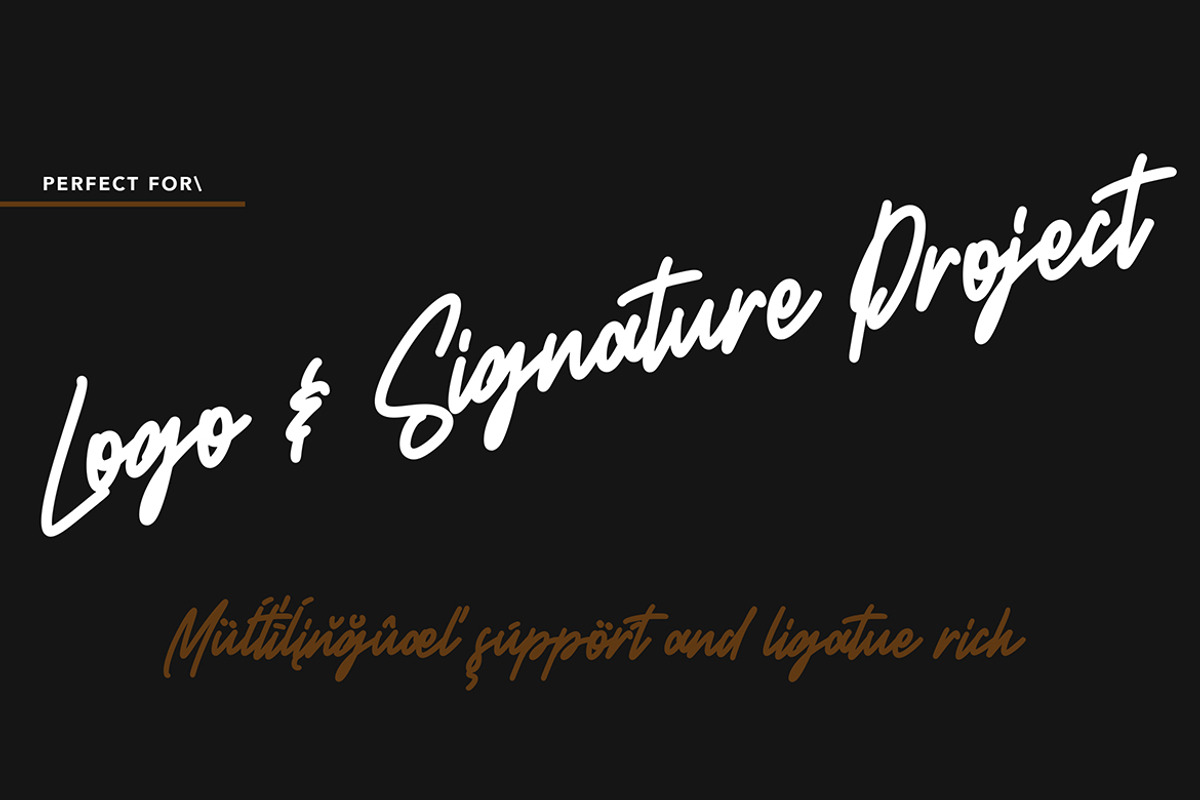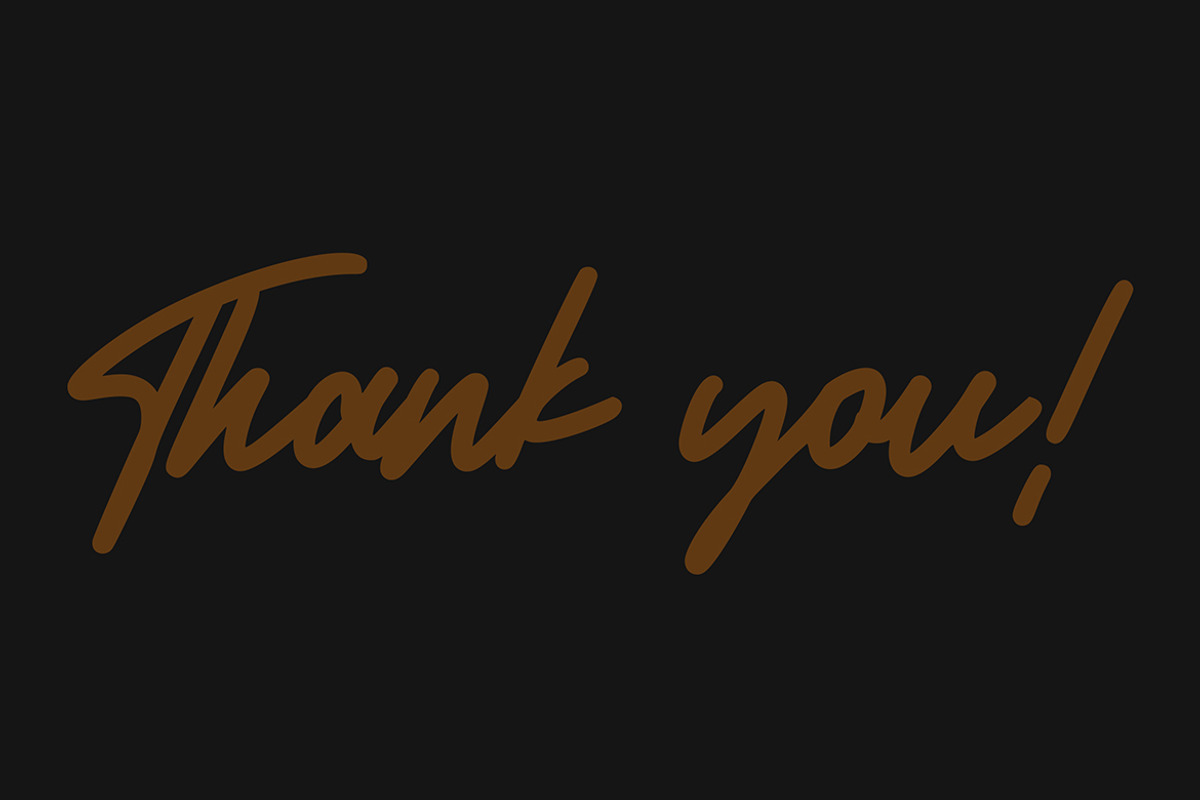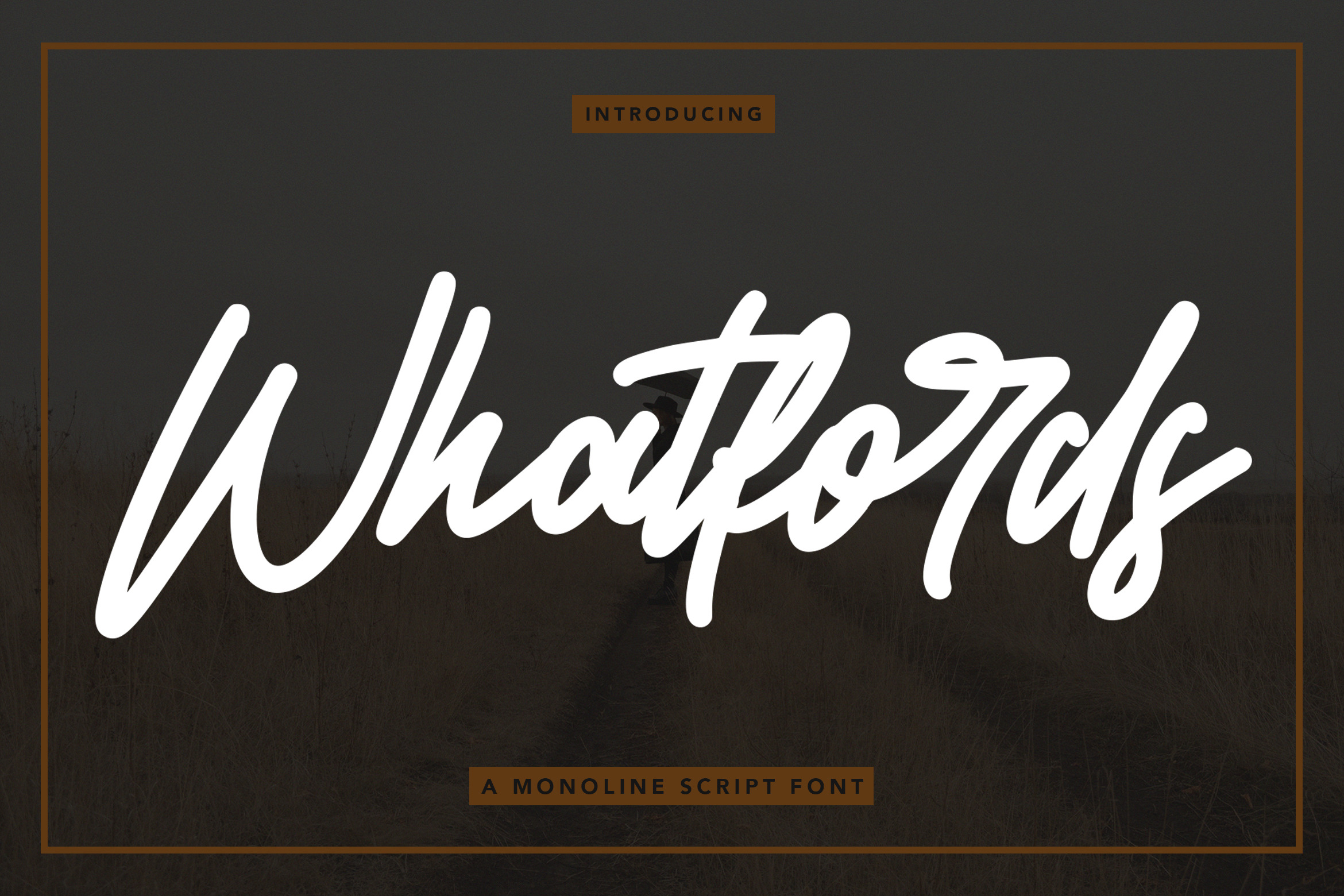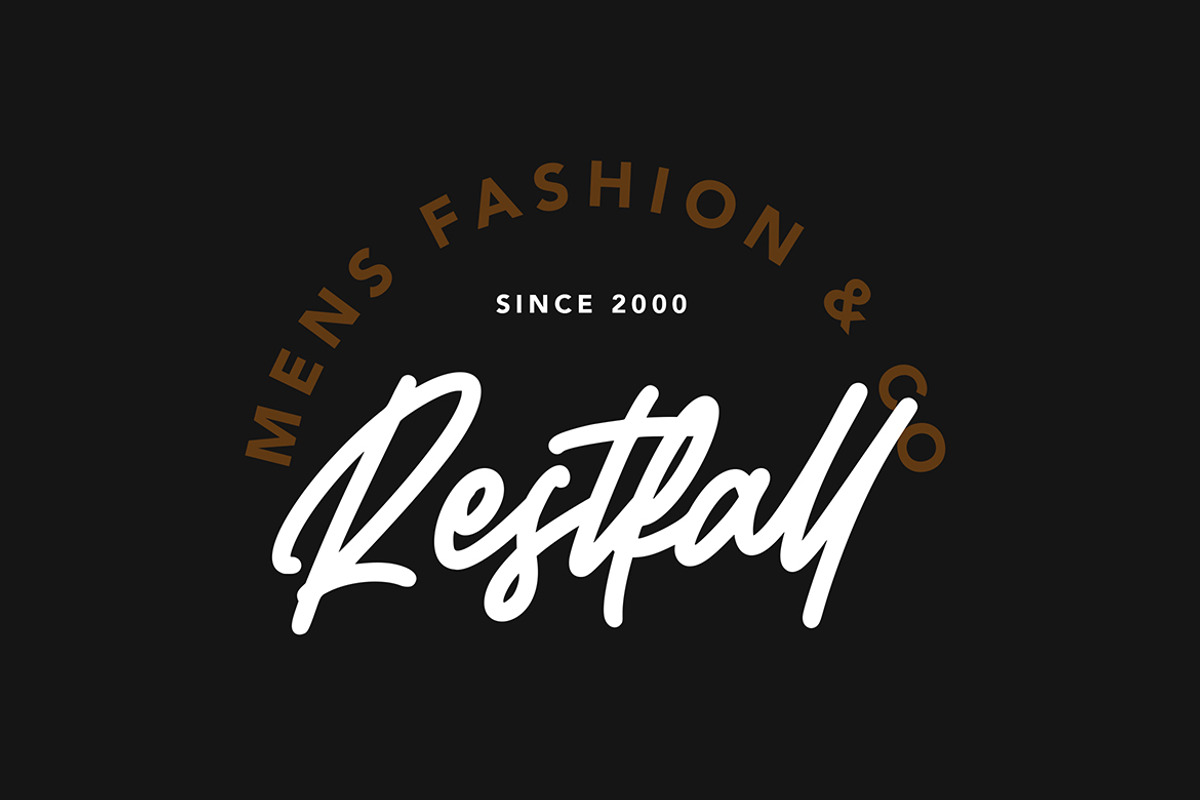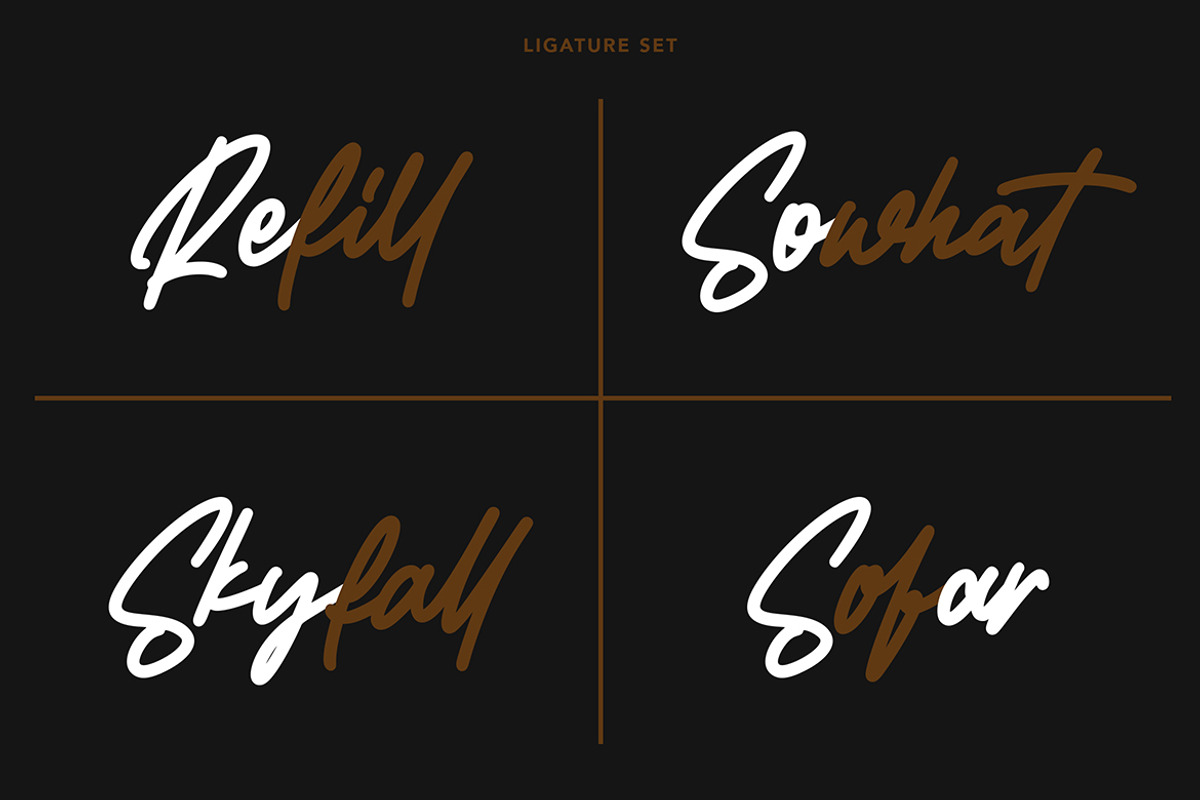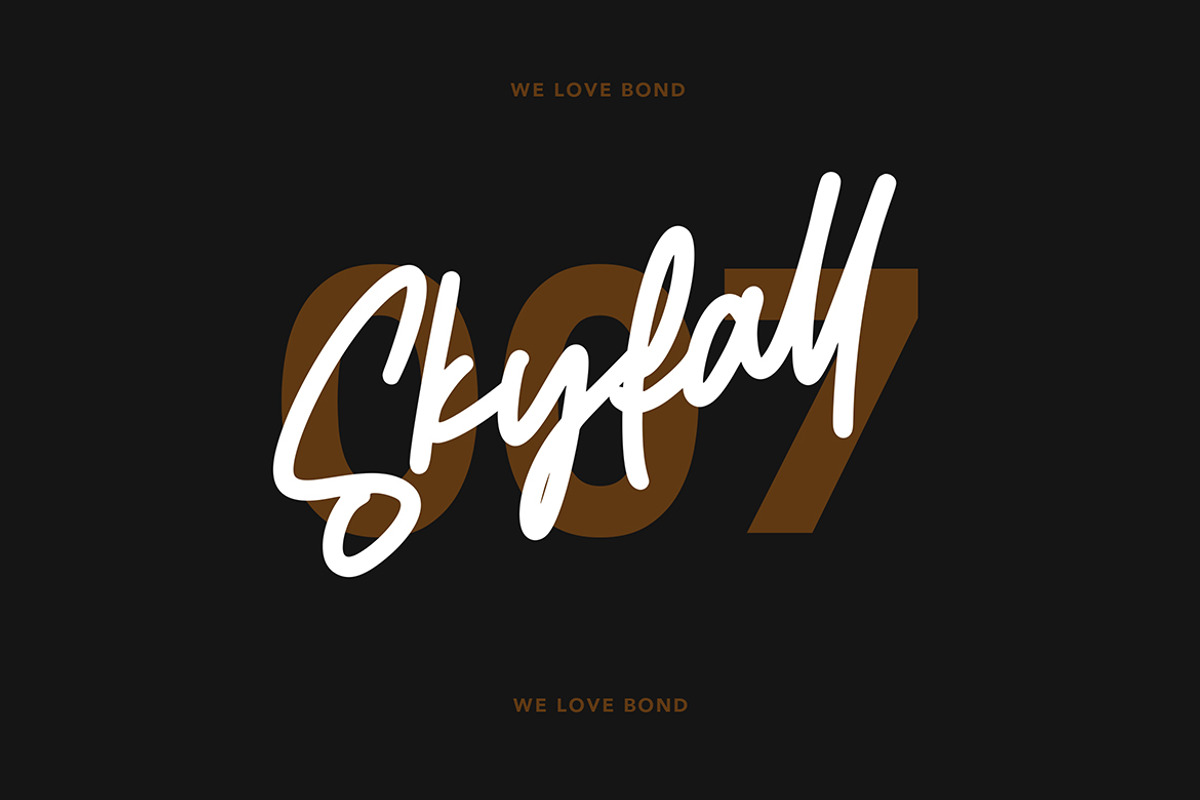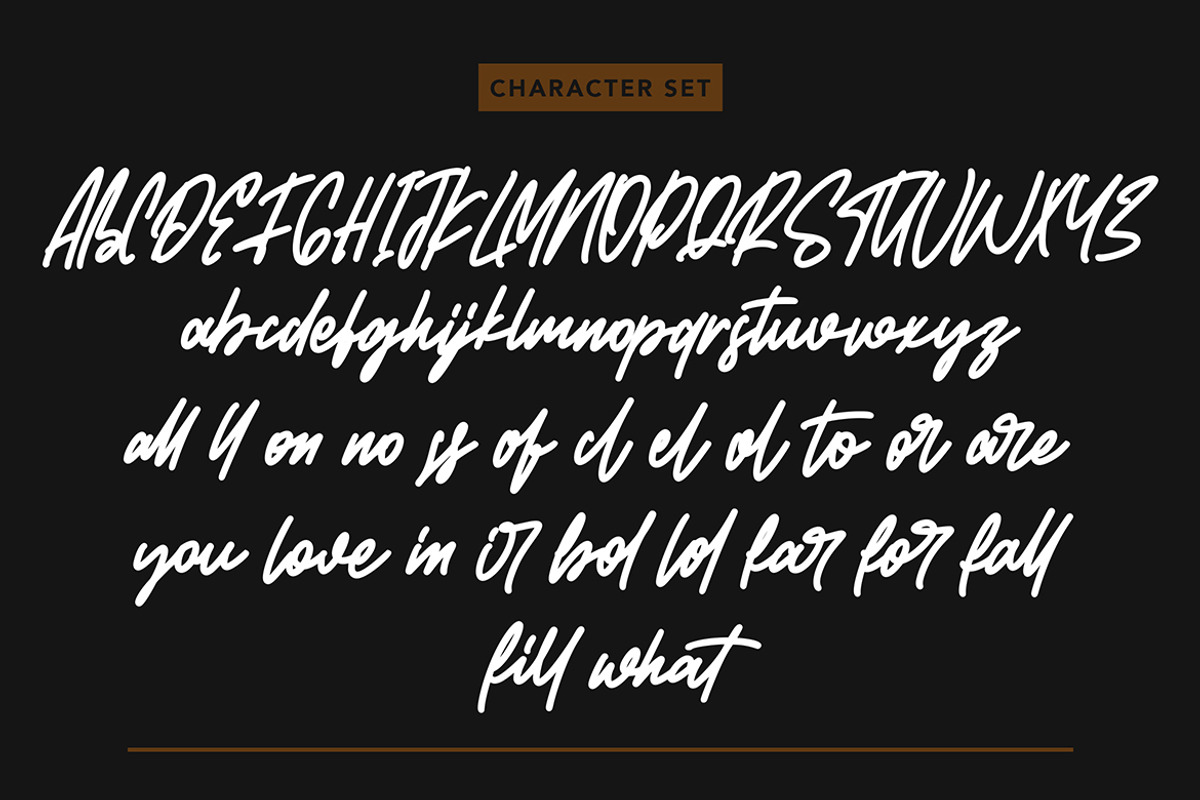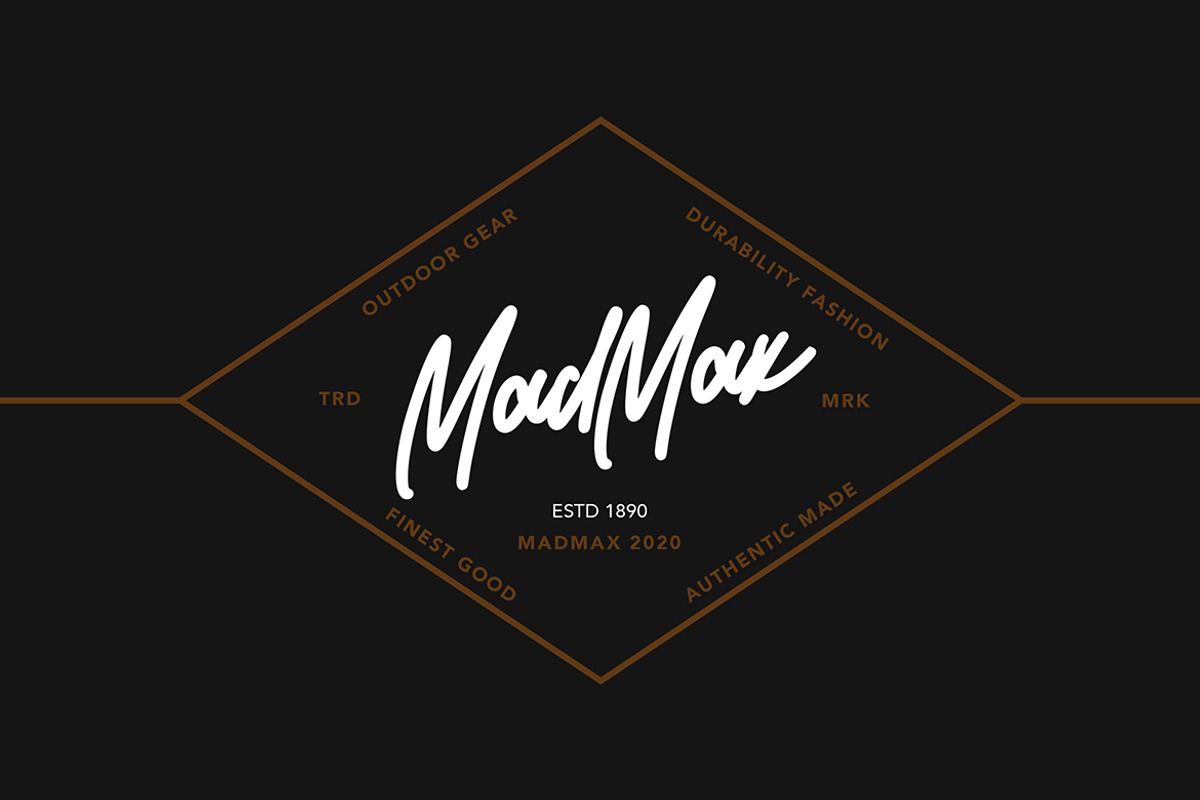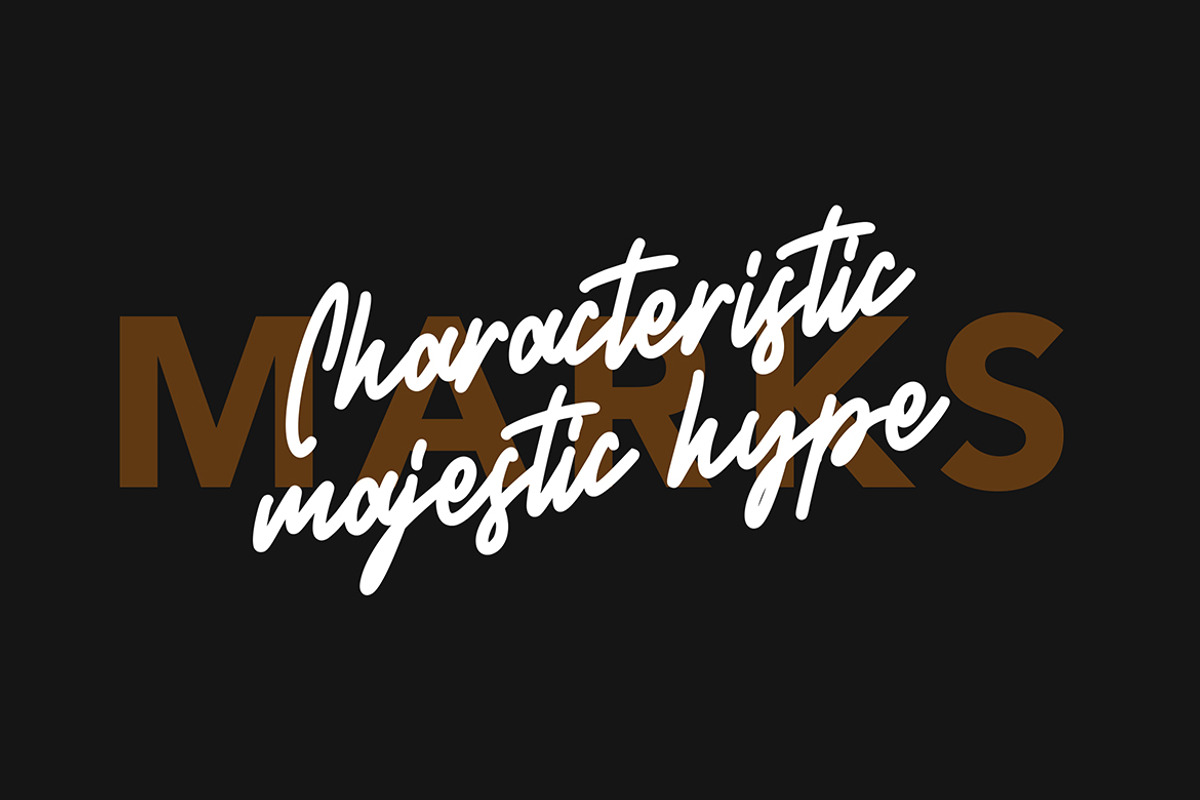
Whatfords - Monoline Script Font
Whatfords - Monoline Script Font contains a lowercase, uppercase, symbol, and also supports multi-language. There’s a lot of ligature in this font. Whatfords - Monoline Script Font also comes with ligatures, stylistic alternates and many more. this font suitable for fashion, branding, catalog and other design that you want.